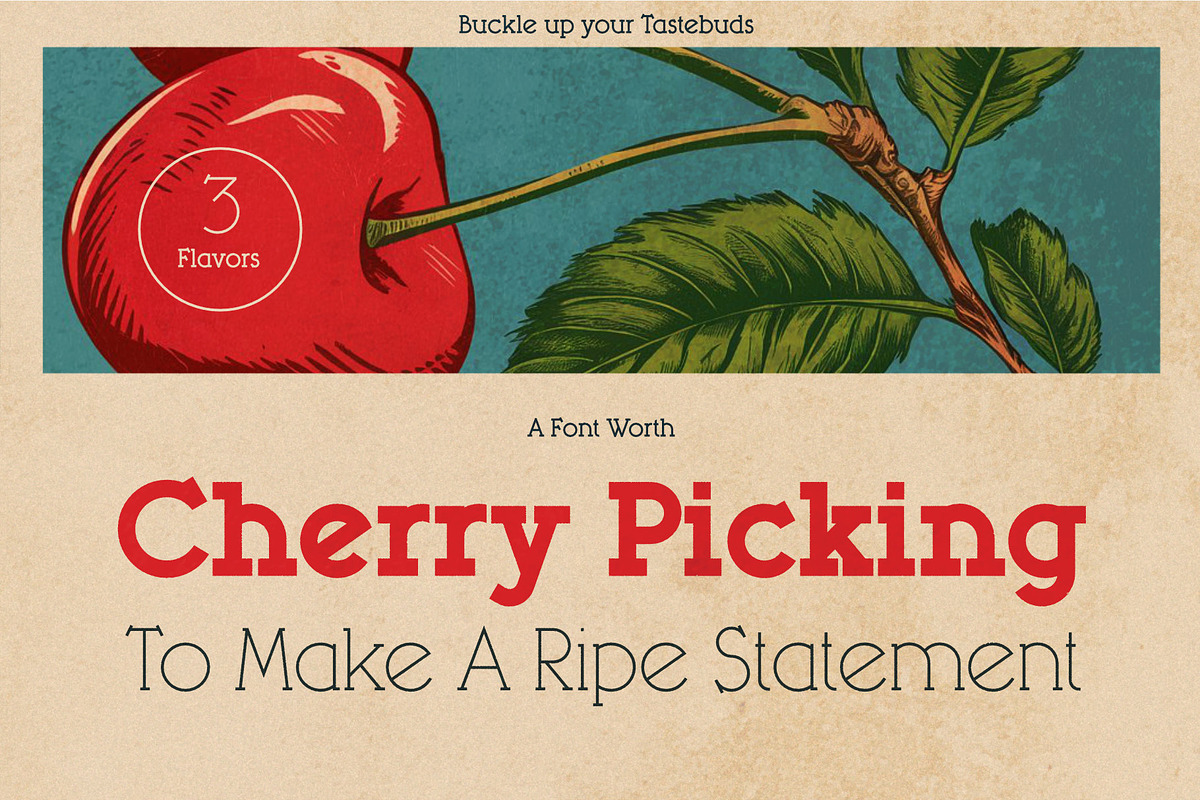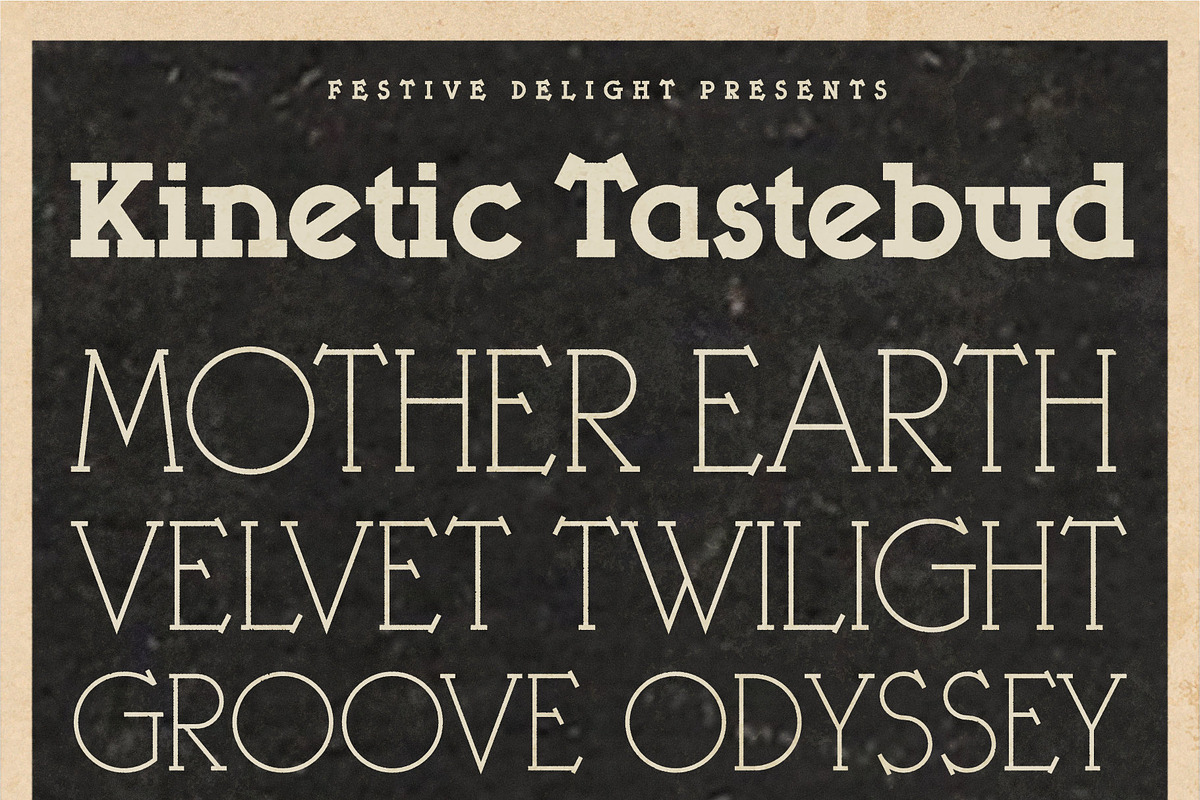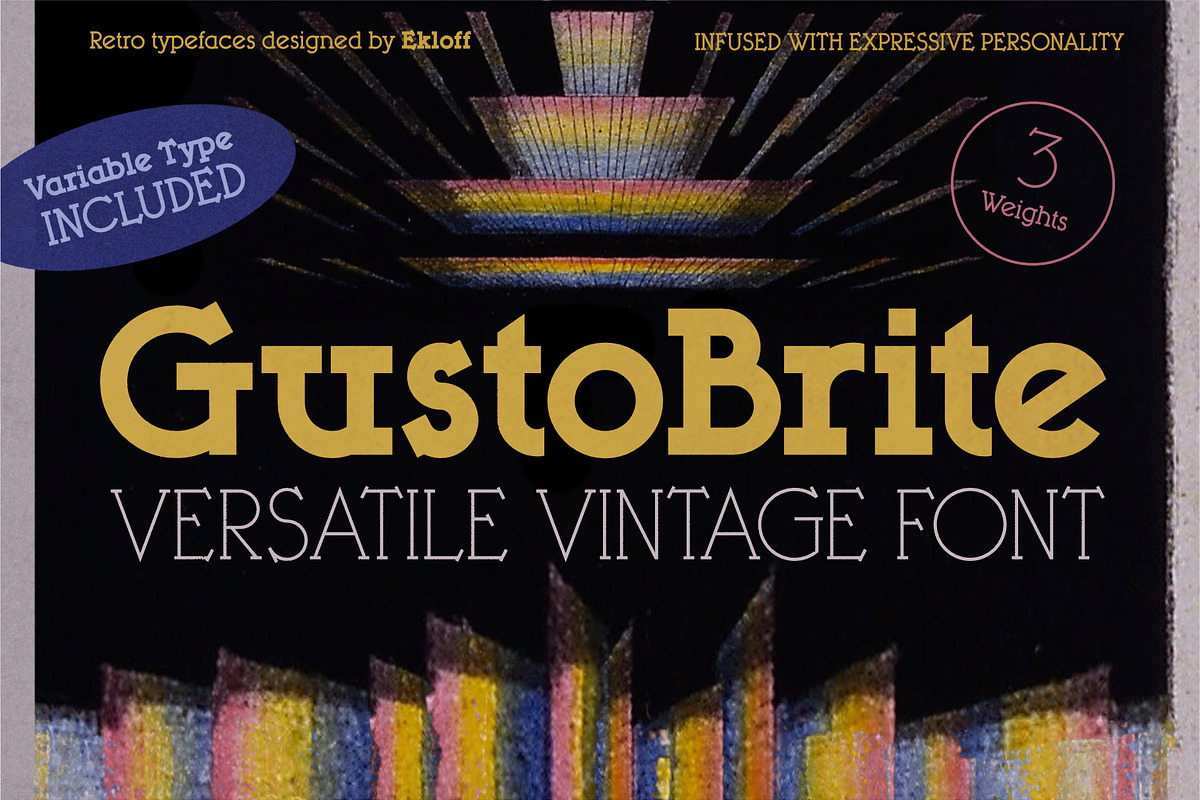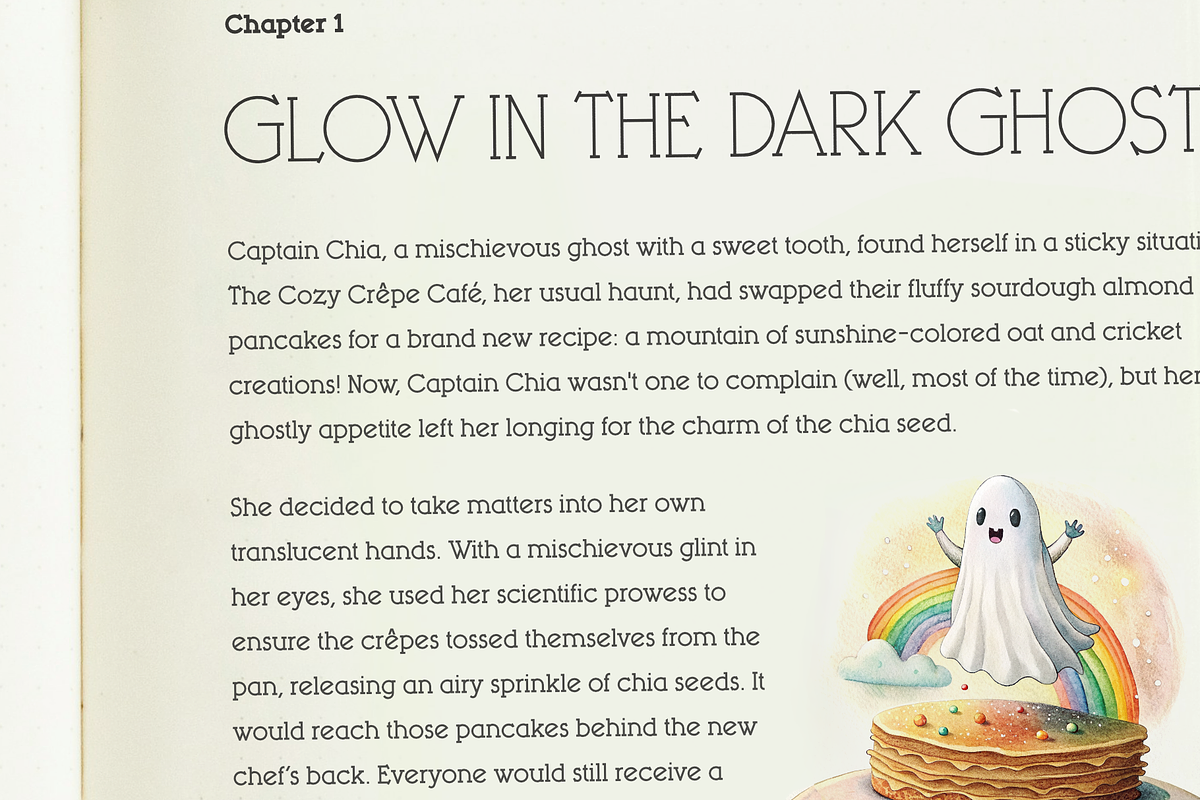
GustoBrite Family: retro slab fonts
GustoBrite Family is the most tastefully expressive font alive. This Eagle Has Landed — the font that soars across a spectrum of tones to make your words and headlines stand out with timeless and down-to-earth approachability. Finally, a typeface that can instantly captivate a broad audience with great gusto. Crafted in three weights and a smooth Variable font variant, you have free reign to unleash a range from whisper-soft to superhero-strong.
GustoBrite Family carries multiple cultural and historical contexts in a vivid tableau, carefully blending 19th-century Art Nouveau, Art Deco, and Old-Style lettering with the sturdy and modern voicing of geometric slab serif fused with humanist traditions. Drawing from hard-to-find typesetting catalogs, the font unearths the best strengths and design quirks of fonts past, casting them in a fresh light for today’s audience. It pays tribute while transcending its history into a harmonious feast for the senses.
Other pop culture display fonts like Windsor or Oswald’s Cooper Black are too widespread to make a fresh impression, but this underdog font retains the youthful and subtly cartoonish quality through its chunky thick heavyweight strokes and unique shapes and cuts. Comparable geometric typefaces like Lubalin Graph or Avant Garde are much blander with their unadorned strict geometric stance. But here, you retain the playful and quirky character while still having a sturdy voice. With GustoBrite Family, round shapes end abruptly with vertical strokes that shear off curves, found on lowercase characters a (single-story), b, d, g, h, m, n, p, and q. Attention to small unique treatments like these are defining features that add new warmth to classic styles.
Use it in your distinct branding or art projects to speak volumes through the rare font’s versatility and expressiveness, or create a sense of nostalgia and charming authenticity that would blend into a 1920s themed handbill, a funky music poster that would rival the old soul of Detroit, or cast a playful glow for children's book titles and text, or stand with gravitas as a display font on a 1970s-style scientific textbook — step aside Dan Eastfield (or was the name Albert Einstein?).
With its robust silhouette and commanding presence, it also works exceptionally well for all those edibles and drinkables, and also swings a bat over to vintage-themed American college sports memorabilia. Whether it's splashed across merchandise at a big league baseball game or emblazoned on small town football or basketball swag, this font is dynamic enough to capture the spirit of victory and teamwork, and even if you use a Solo letter — X would mark the spot.
Enjoy this slab with good company, and slab it everywhere it dutifully makes a powerful impression.
How the GustoBrite Family describes itself:
- Reinvented revival of machine-age advertising typefaces, notably inspired by sparse specimen fragments of "Eagle" and "Detroit" unearthed in type archives by Dan X. Solo
- Perfectly circular and straight linear construction with hints of calligraphic and humanist angles and perfect monoline strokes
- Uniform stroke thickness
- Multiweight spectrum named after fingers, but could be quirk-pilled characters in a Wes Anderson film (Pinky, Middle, and Thumbkin)
- Strong striking Slab with a personality unlike any other mainstream slab
- Large x-height, exaggerated ratios, and short ascenders… which means more “rizz” than you can wag a tail at.
- Built by hand by typography obsessed fanatic, including over 430 kerning pairs, and dialed in for legibility.